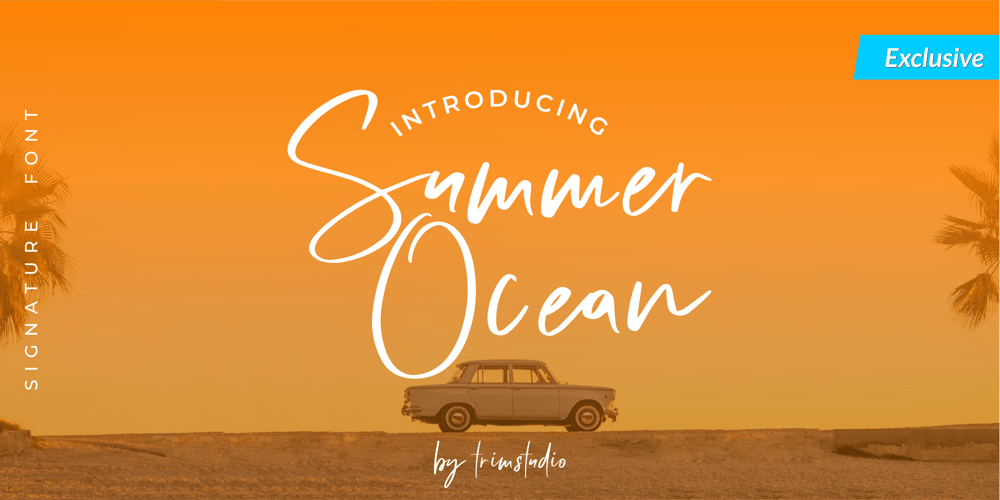
Summer Ocean
Summer Ocean font
Summer Ocean Font Family was designed by Deri Kurnia and published by Trim Studio. Summer Ocean contains 1 styles and family package options. **Summer Ocean** Bring a touch of the ocean’s breezy energy to your designs with this handwritting flowing script font. Named “Summer Ocean,” this font captures the essence of the beach with its relaxed, carefree style. The handwritting script style is accented by a mix of hand-drawn elements, giving it a personal, natural feel. This font will bring a touch of the ocean to your designs. So sit back, relax, and let “**Summer Ocean** ” transport you to the beach with its handwritting flowing script style and mix of hand-drawn elements.Its perfect for vacation-themed designs, wedding invitations, or any project that needs a touch of summery charm, and many more!even so contains All Standard glyphs and punctuations—Thank you for let us be your design partner, If you have any questions please don’t **hesitate** to drop me a message